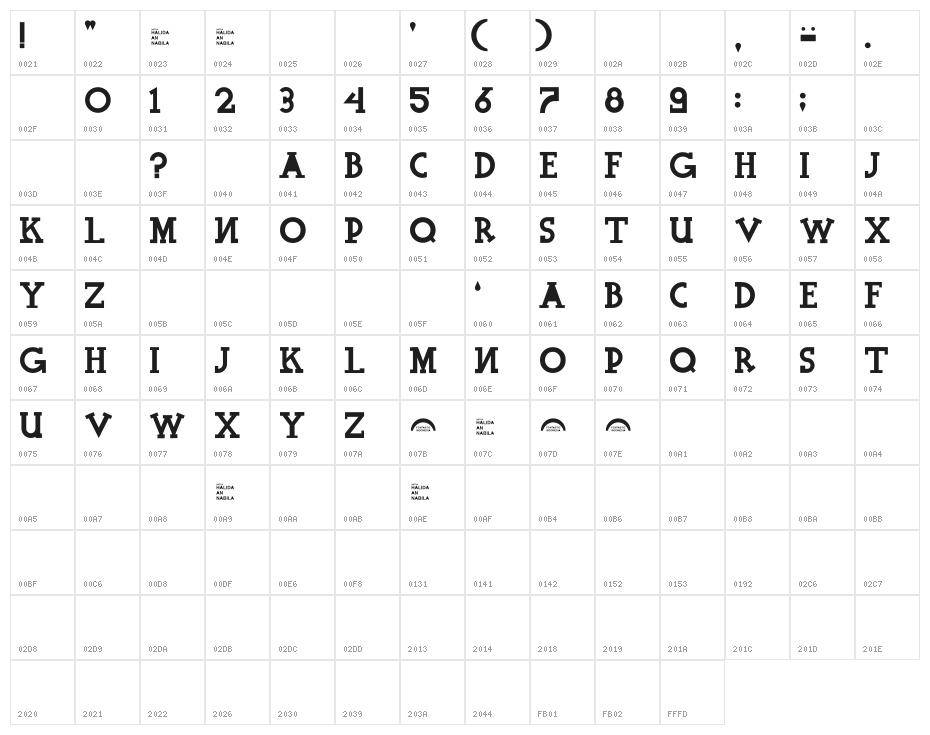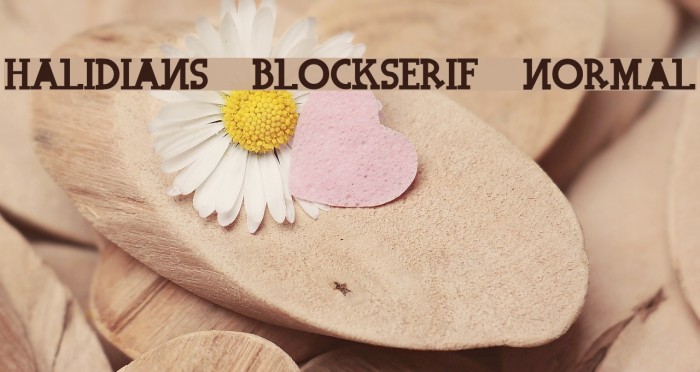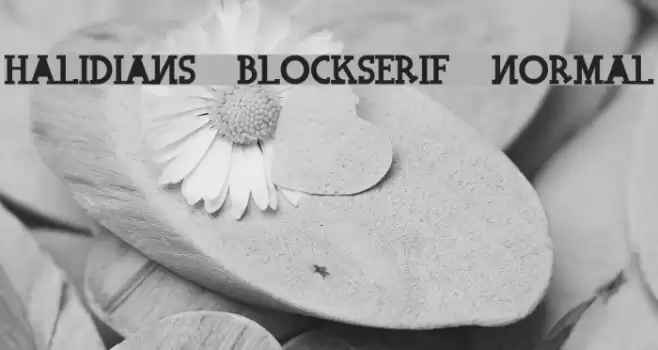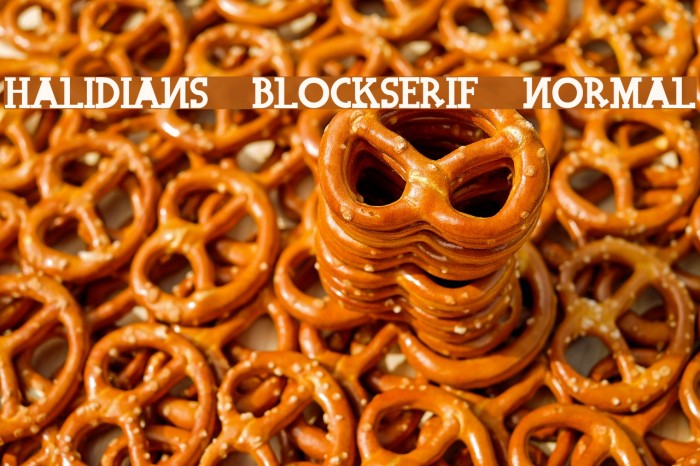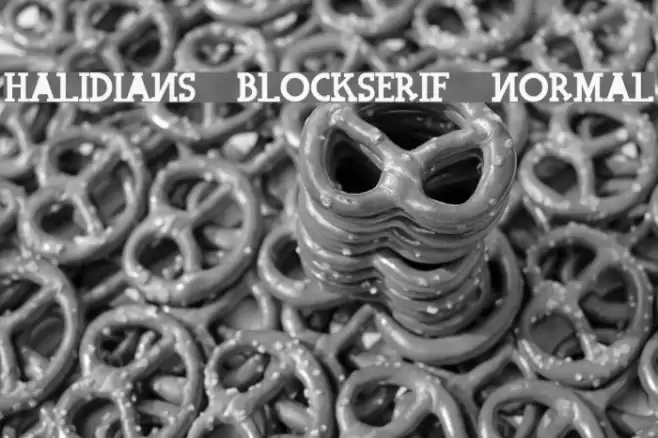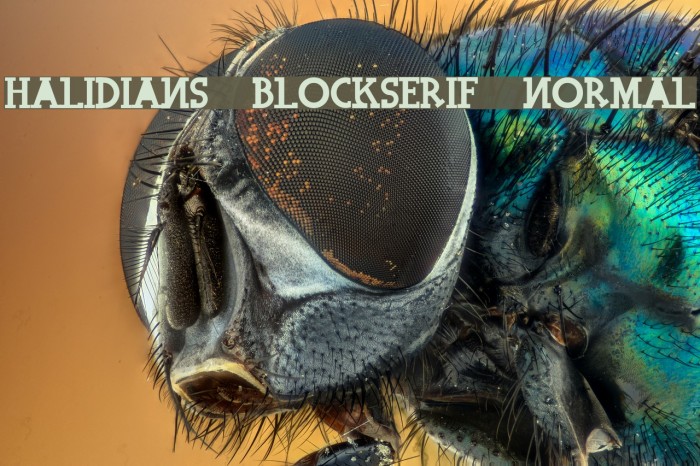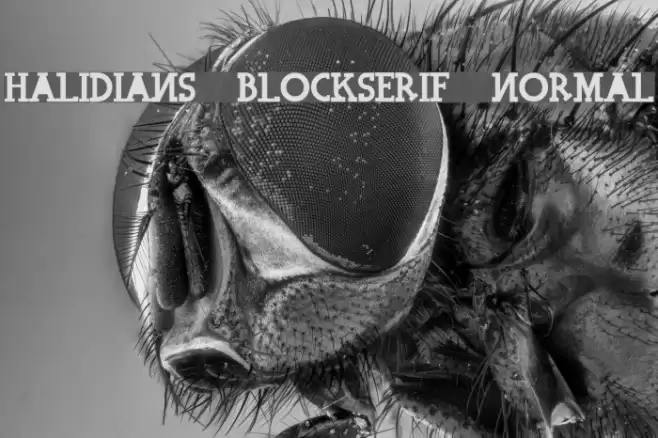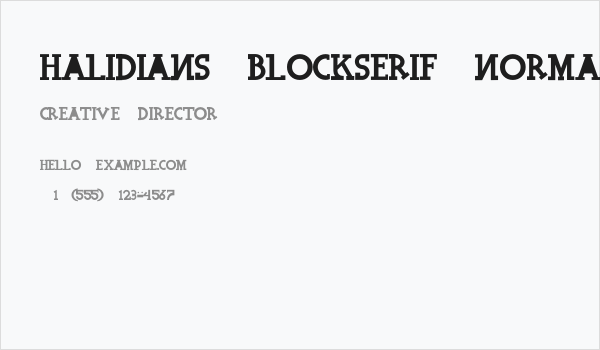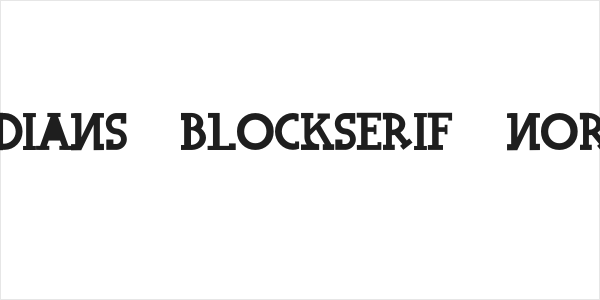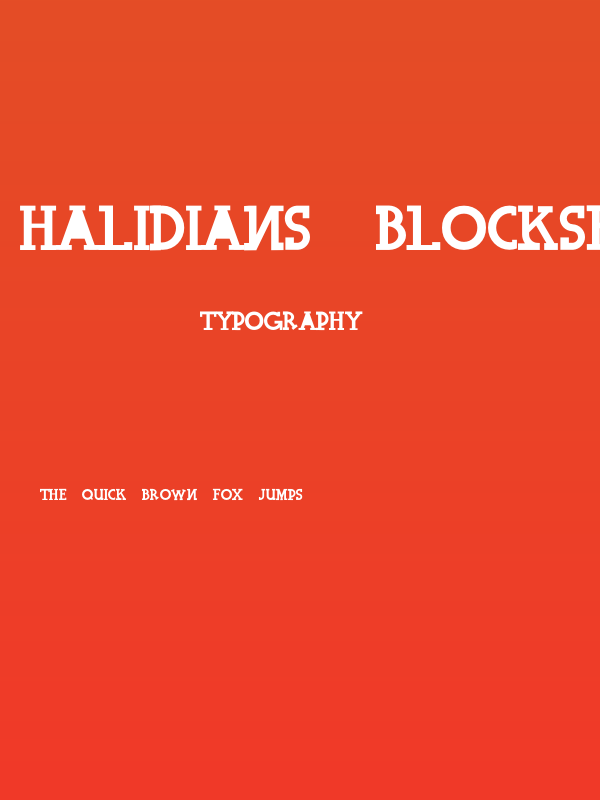
Halidians Blockserif Normal Font
Halidians Blockserif Normal Description
This font exhibits a bold and commanding presence with its block serif style. The characters are robust and sturdy, featuring thick strokes and prominent serifs that give it a strong, authoritative look. The uppercase letters are particularly striking, with a geometric influence that adds a modern touch to the classic serif design. The numerals are equally bold, maintaining the same weight and style as the letters, ensuring consistency across all characters. The special characters are designed with the same attention to detail, making them stand out while remaining cohesive with the overall font style.